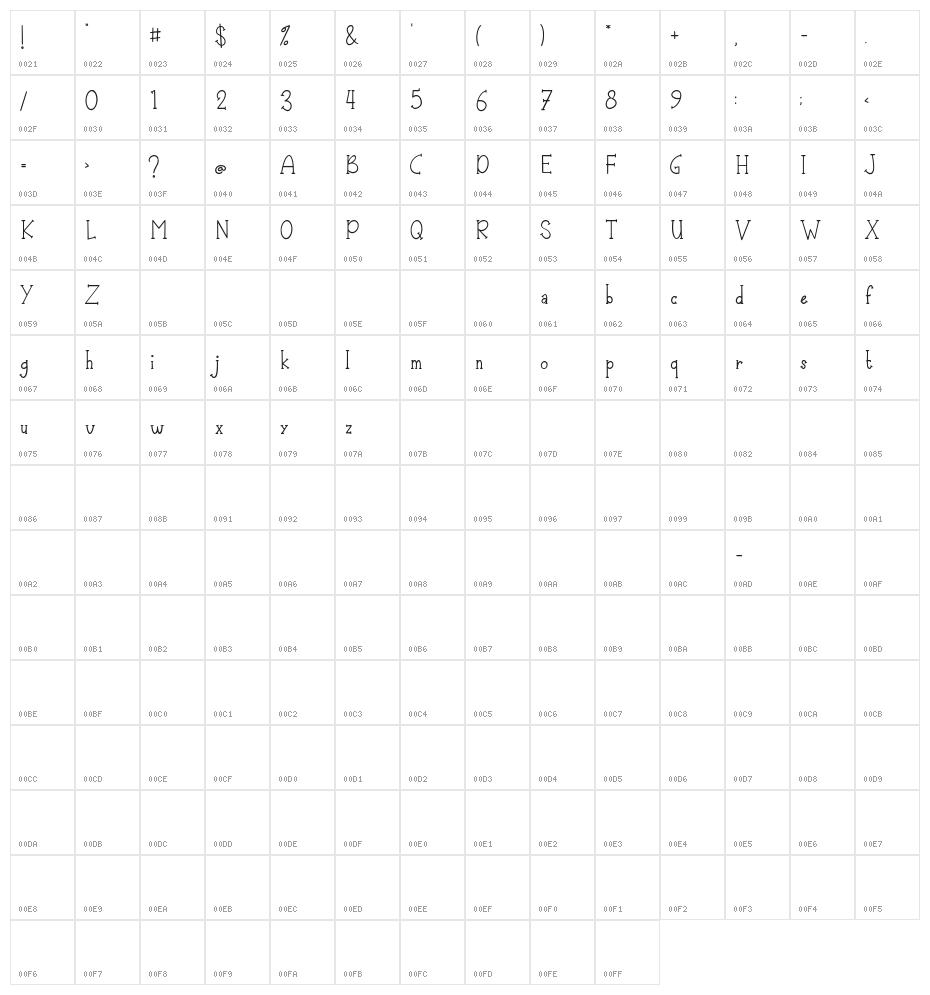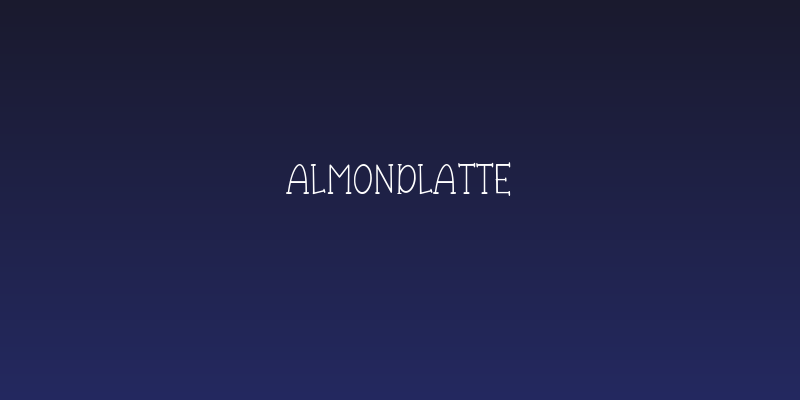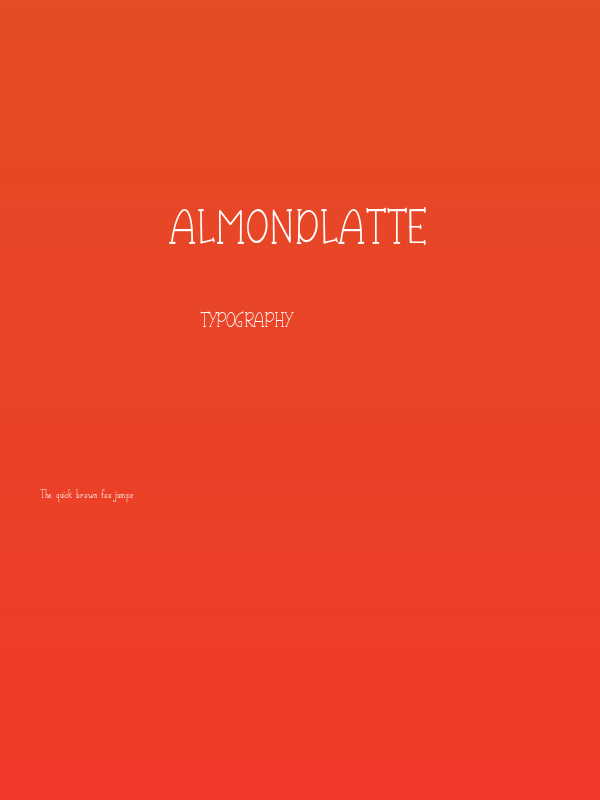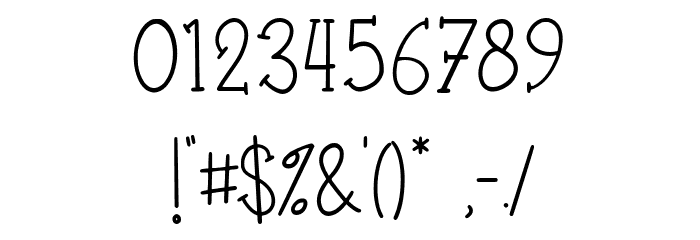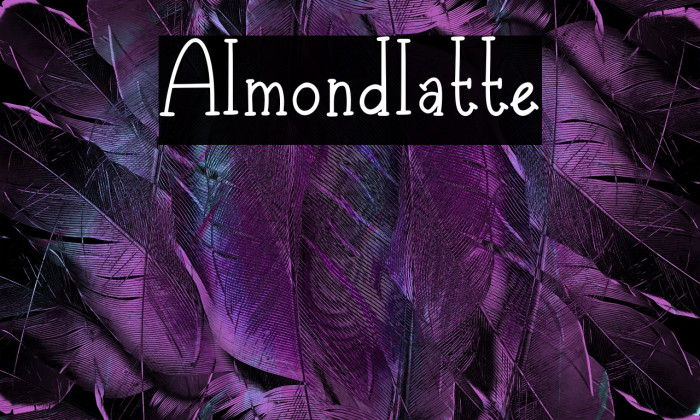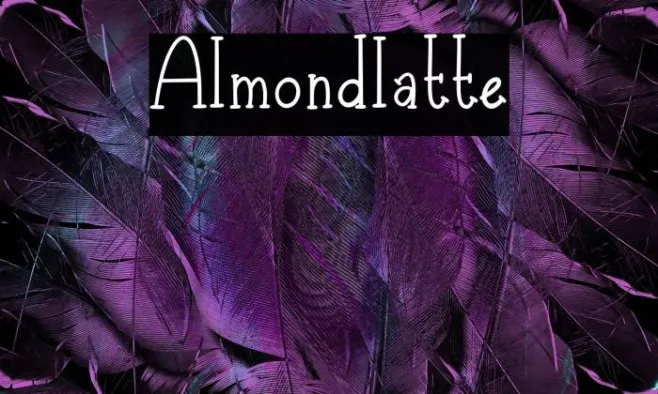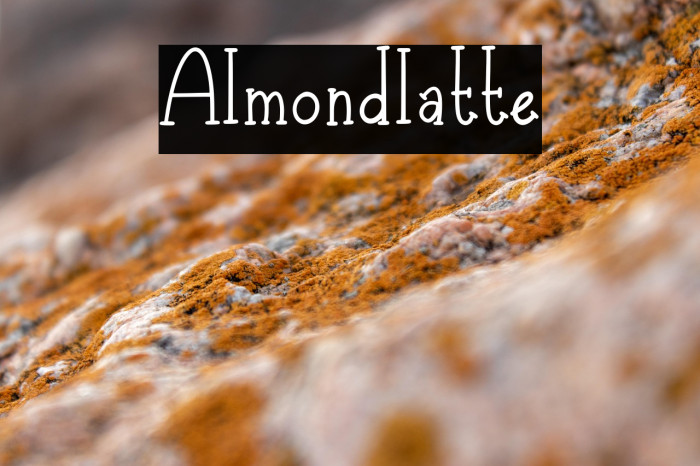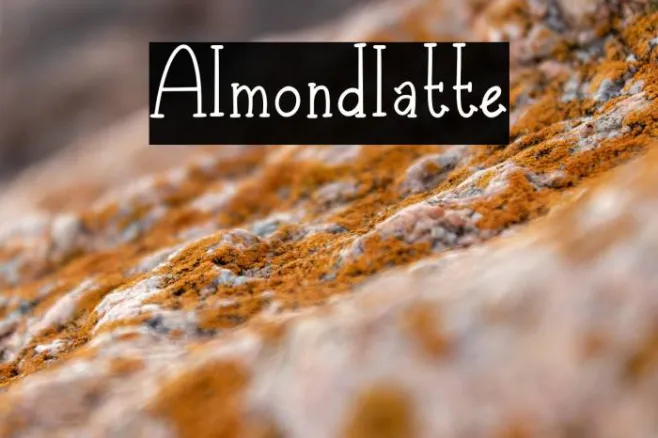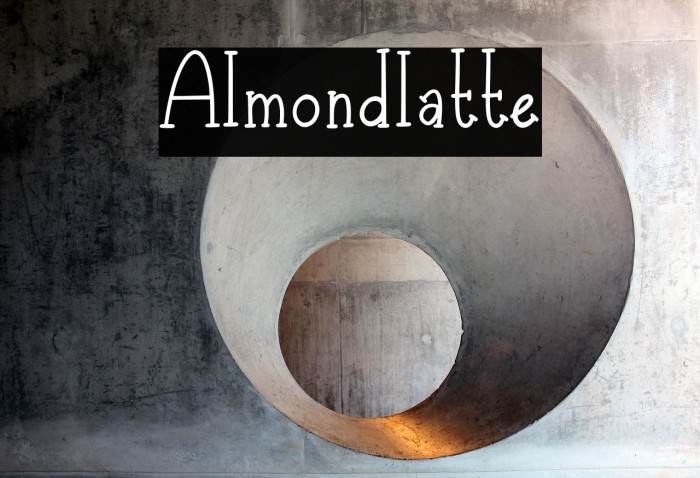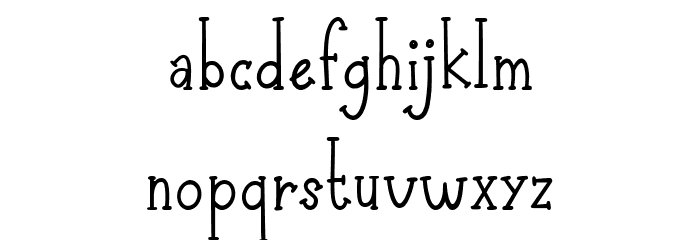
Almondlatte Font
Almondlatte Description
This font exhibits a playful and whimsical style with its tall, narrow characters and slightly irregular strokes. The uppercase letters are distinct with elongated verticals and subtle curves, giving them a unique personality. The lowercase letters maintain a consistent style, with some characters featuring charming loops and curls. Numbers are clear and easy to read, while the special characters add a touch of flair with their quirky designs. Overall, the font combines a sense of fun with readability, making it suitable for creative projects.
| Overall Style | Whimsical, Playful |
| Proposed Projects | Ideal for children's books, greeting cards, playful branding, and creative posters. |